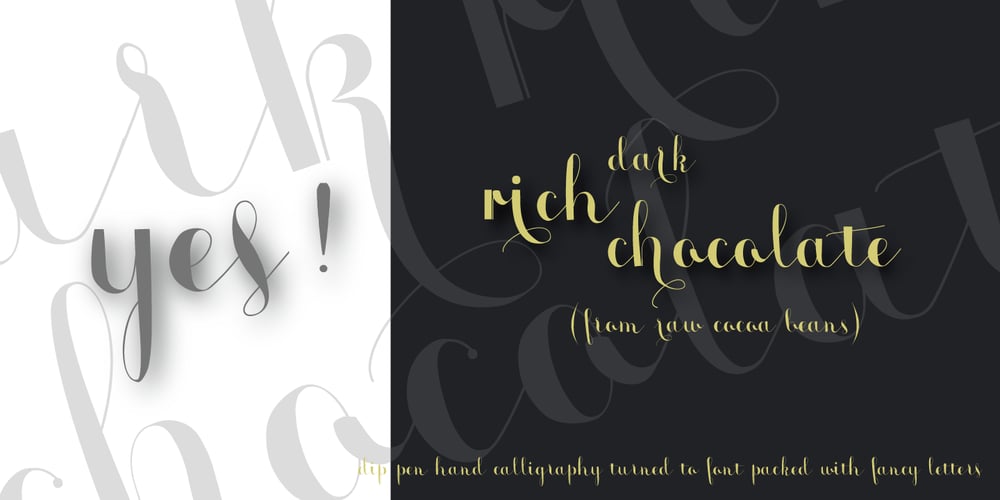
Monmica Font Family was designed by Aga Silva and published by Aga Silva. Monmica contains 3 styles and family package options. This is my latest release : monmica family – a set of three multilingual, handwritten stylish copperplate calligraphy fonts. The files listed here are containing 1118, 1229 and 2018, glyphs respectively. There are many open type features: fancy swashes, alternates, ligatures, contextual alternates, fractions etc. – all easily available at the click of a mouse. Those fonts allow for creating text in majority of languages where Latin script is used.